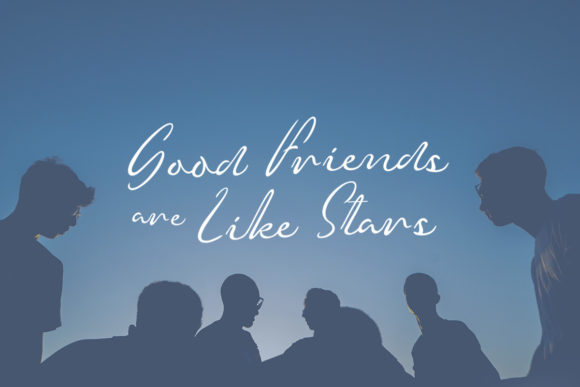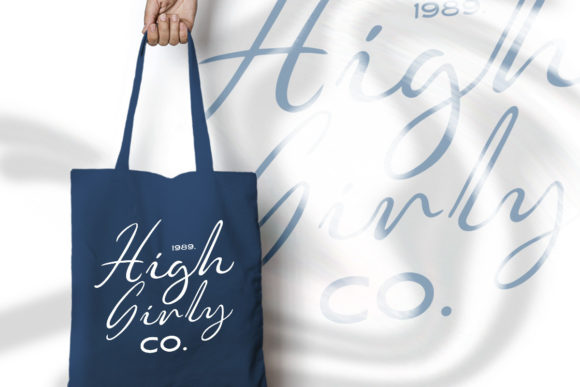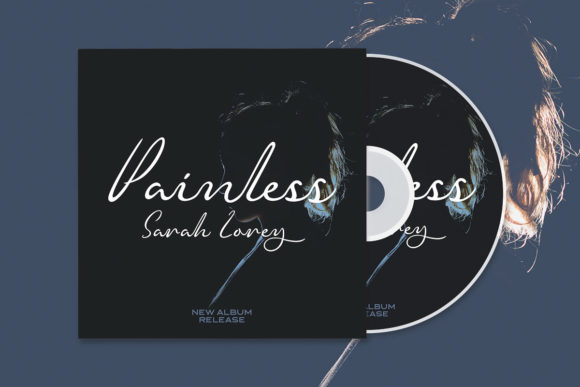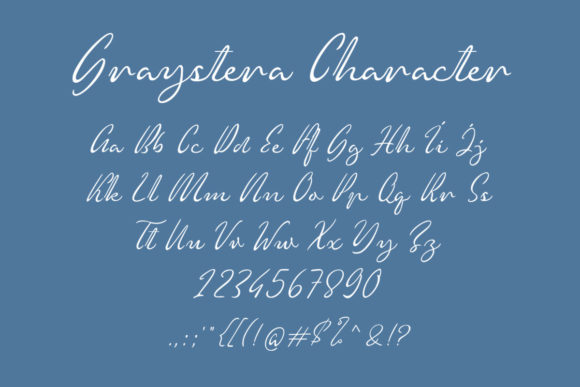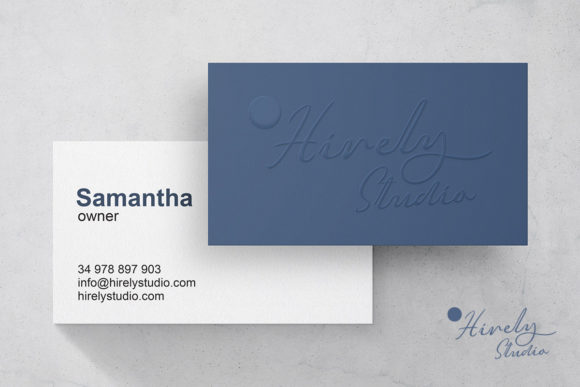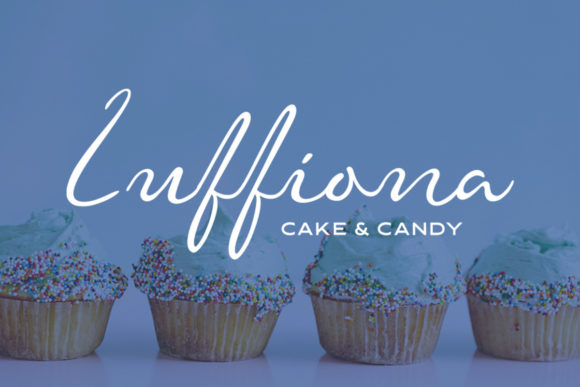
Introduction to Graystera Font
Have you ever been stuck in a creative rut, staring at a blank canvas with a deadline looming over you? It’s a feeling we’ve all been there, and it’s exactly when we need a little spark to get those creative juices flowing. For designers, the right font can be that spark that sets off a chain reaction of inspiration. And, we’re excited to share with you a game-changing design resource that’s sure to elevate your next project – the Graystera Font.
With its unique, handwritten touch, Graystera Font is the perfect choice for creating eye-catching logos, branding, and quotes that stand out from the crowd. Whether you’re working on a high-quality design project or just need a reliable design resource, this font is sure to deliver. Plus, with its transparent background and free download option, you can incorporate it into your next creative project with ease.
Key Features of Graystera Font
- High-quality design: Graystera Font is a carefully crafted, professional-looking font suitable for a variety of creative projects.
- Transparent background: This font features a transparent background, making it ideal for designers who want to add text overlays or combine it with other design elements.
- Large character set: Graystera Font includes a large character set, including uppercase and lowercase letters, numbers, and punctuation marks, making it suitable for a variety of design applications.
- High-resolution design: The font is designed at 300 DPI, ensuring high-quality output and minimizing the risk of pixelation or distortion when used in large formats.
- Easy to customize: Graystera Font is highly customizable, allowing designers to easily adjust the font size, color, and style to suit their specific design needs.
Honest Review: Graystera Font
I recently had the chance to work with the Graystera Font, and I must say it’s been a game-changer for my design projects. The font’s high quality and sleek design make it a fantastic addition to any creative project.
One of the standout features of the Graystera Font is its transparent background, which allows for seamless integration with any design element. This flexibility makes it a valuable design resource for any project, from logos to website design.
Here are some of the things that work well with the Graystera Font:
While the Graystera Font is an excellent resource, there are a few limitations to consider:
- ⚠️ Limited character set, which may not be suitable for complex designs
- ⚠️ May not be suitable for print projects due to its digital design
Overall, I’m thoroughly impressed with the Graystera Font. Its unique design and high quality make it a fantastic addition to any design project. I highly recommend it to designers looking for a reliable and versatile font.
For optimal results, use the Graystera Font in conjunction with a high-quality image or design element. Experiment with different font sizes and colors to create visual interest in your design. Don’t forget to save your design as a high-resolution file to ensure the best possible output.
The Graystera Font is ideal for a variety of creative projects, including logos, brochures, business cards, and presentations. Its transparent background feature makes it a popular choice for designers who want to create clean and modern designs.
Yes, the Graystera Font is designed to be high-quality and suitable for high-resolution design projects. It’s optimized for use at large sizes and can be used for a variety of creative projects, from print to digital media.
Does the Graystera Font have a transparent background?
Yes, the Graystera Font has a transparent background, making it easy to use with transparent or semi-transparent backgrounds. This feature is particularly useful for designers working on creative projects that require a high level of customization and flexibility.